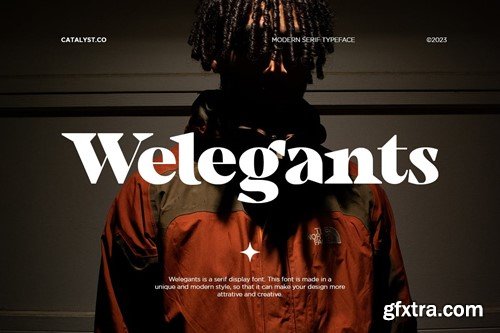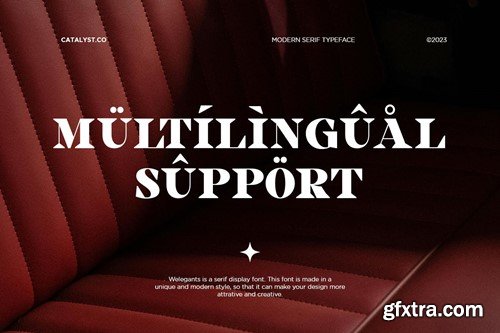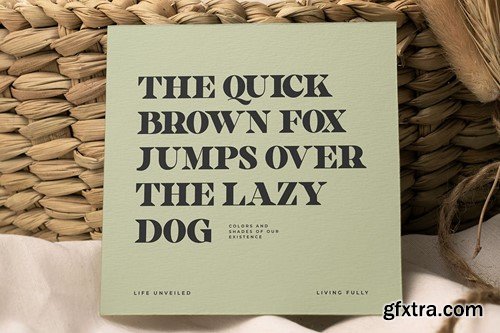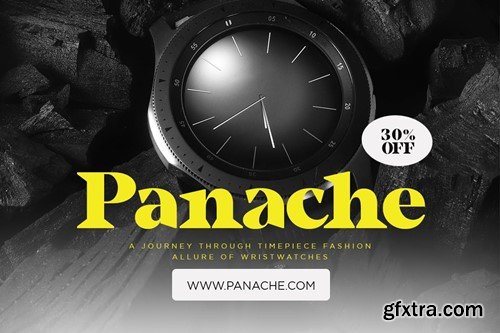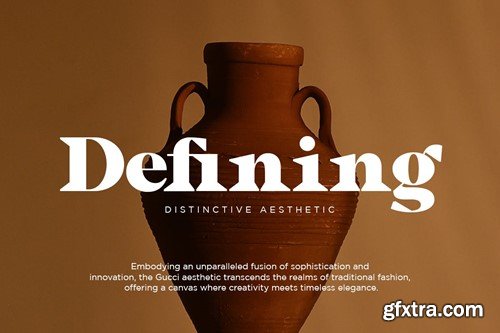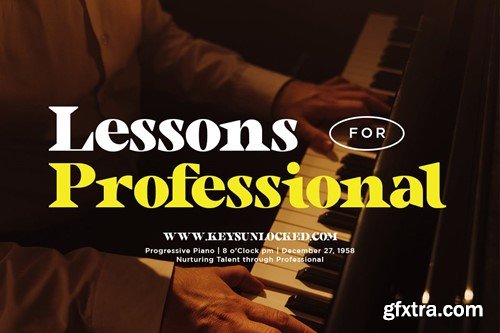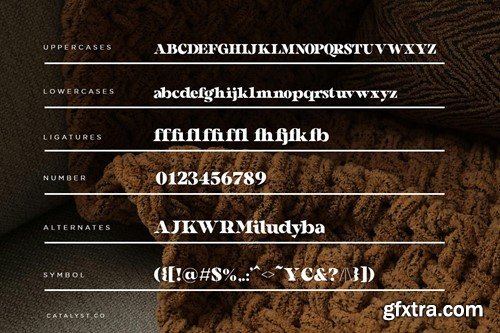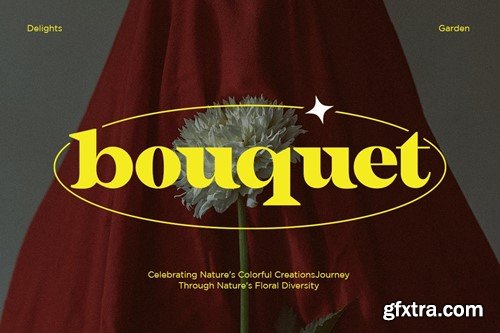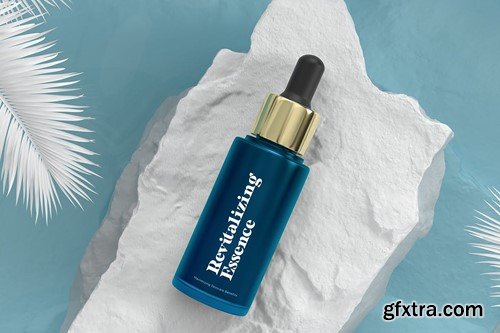
Welegants 现代衬线字体类型 JPJVW7N
Welegants Modern Serif Typeface Font JPJVW7N
Welegants Modern Serif Typeface Font
Welegants Modern Serif Typeface Font typeface excellent used for the manufacture quote text, logotype, header magazine, and many more.
Main Features
• Uppercase & Lowercase
• Ligatures & Alternate
• Numeral & Punctuations
• Multilingual Support